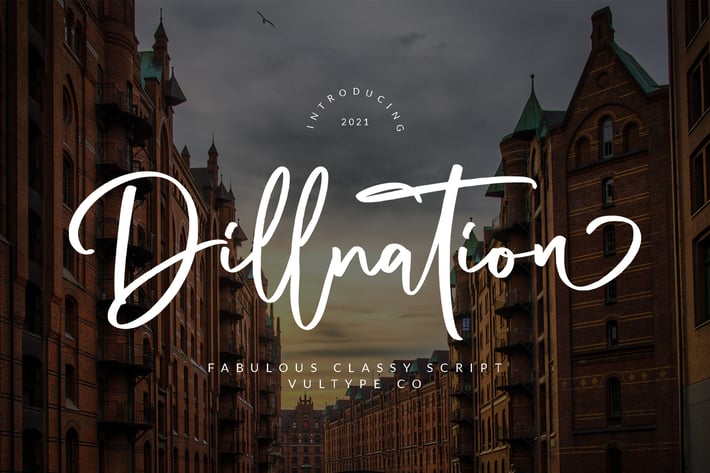
Dillnation - Elegant Signature Font
Dillnation Signature Font made with simple and elegant hand writing will create stunning signature style.
Dillnation is perfect for branding projects, logo, wedding designs, social media posts, advertisements, product packaging, product designs, label, photography, watermark, invitation, stationery and any projects that need handwriting taste.